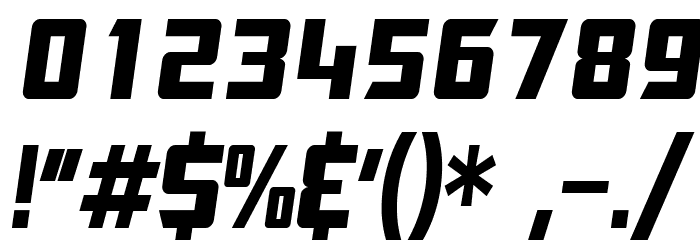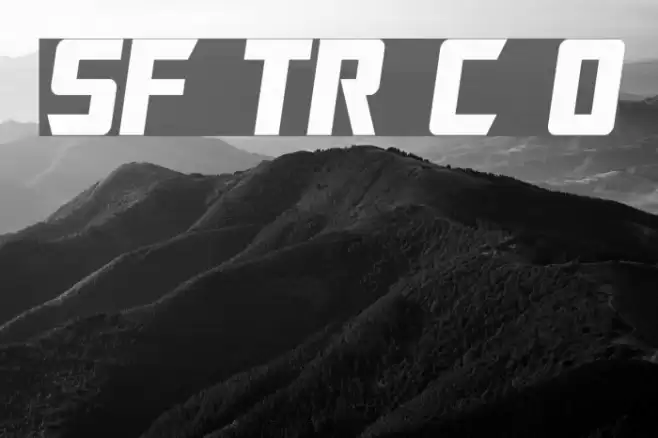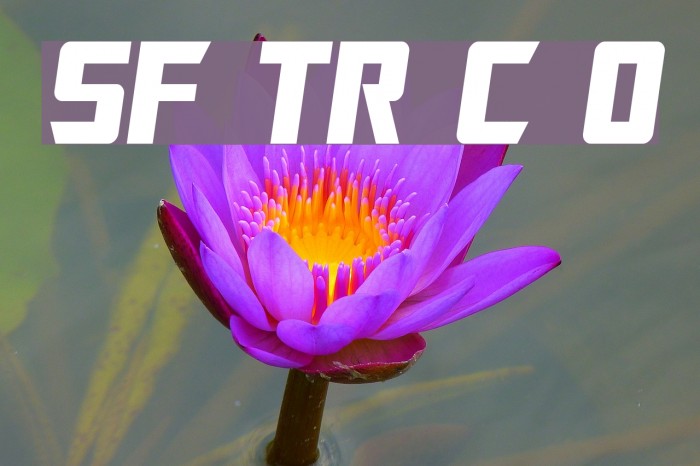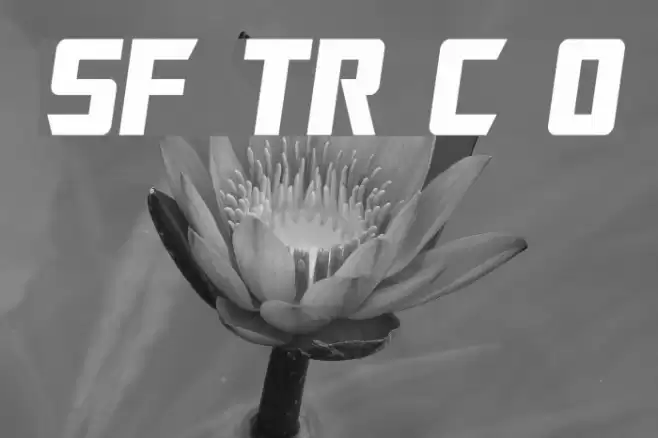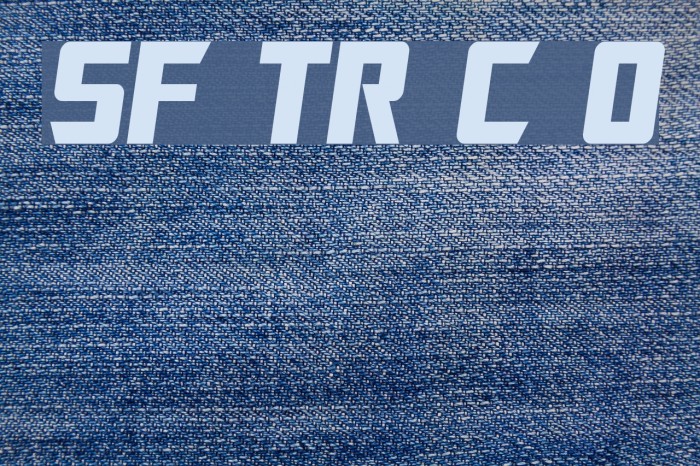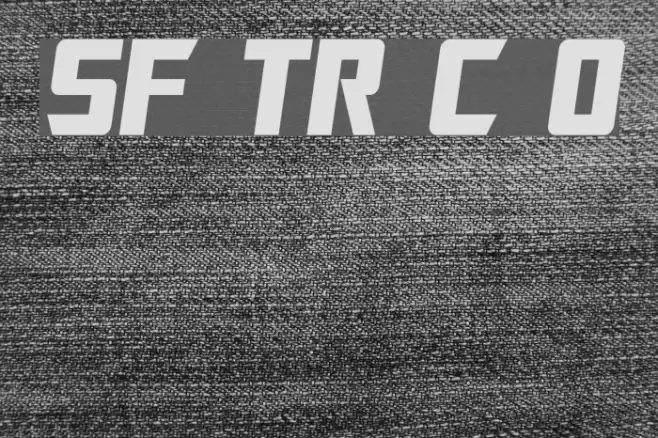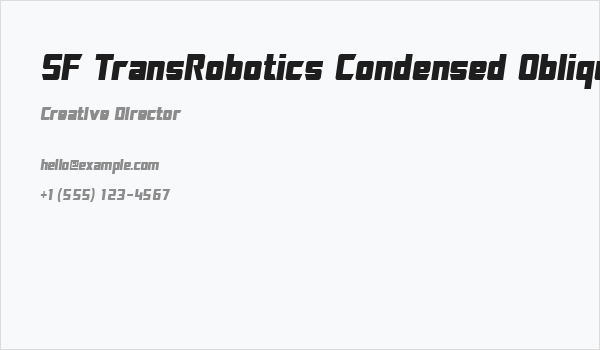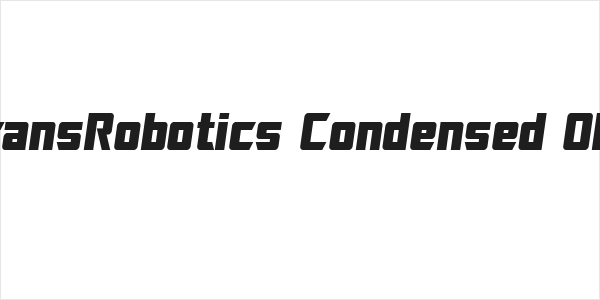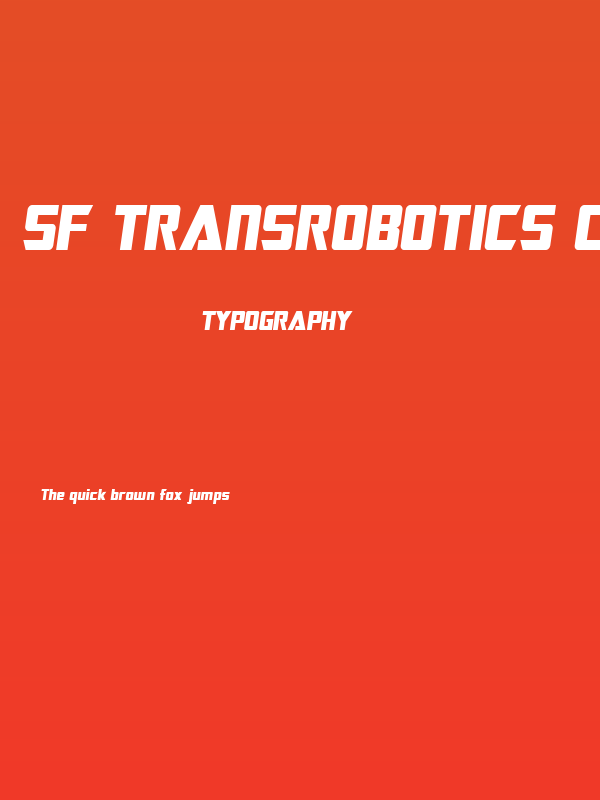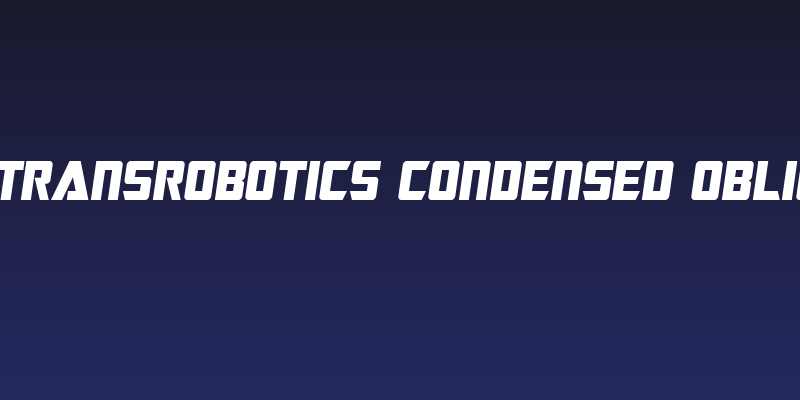
SF TransRobotics Condensed Oblique Font
SF TransRobotics Condensed Oblique Description
This font features a futuristic and dynamic design with a strong emphasis on angular and geometric shapes. The characters are condensed and oblique, giving a sense of movement and speed. The uppercase letters are bold and assertive, while the lowercase letters maintain a consistent style with slightly softer edges. The numerals are distinct and easily readable, complementing the overall aesthetic. Special characters are designed to match the font's bold and modern style, making it suitable for attention-grabbing headlines and logos.
| Proposed Projects | Ideal for technology branding, sci-fi movie posters, video game titles, and modern advertising campaigns. |